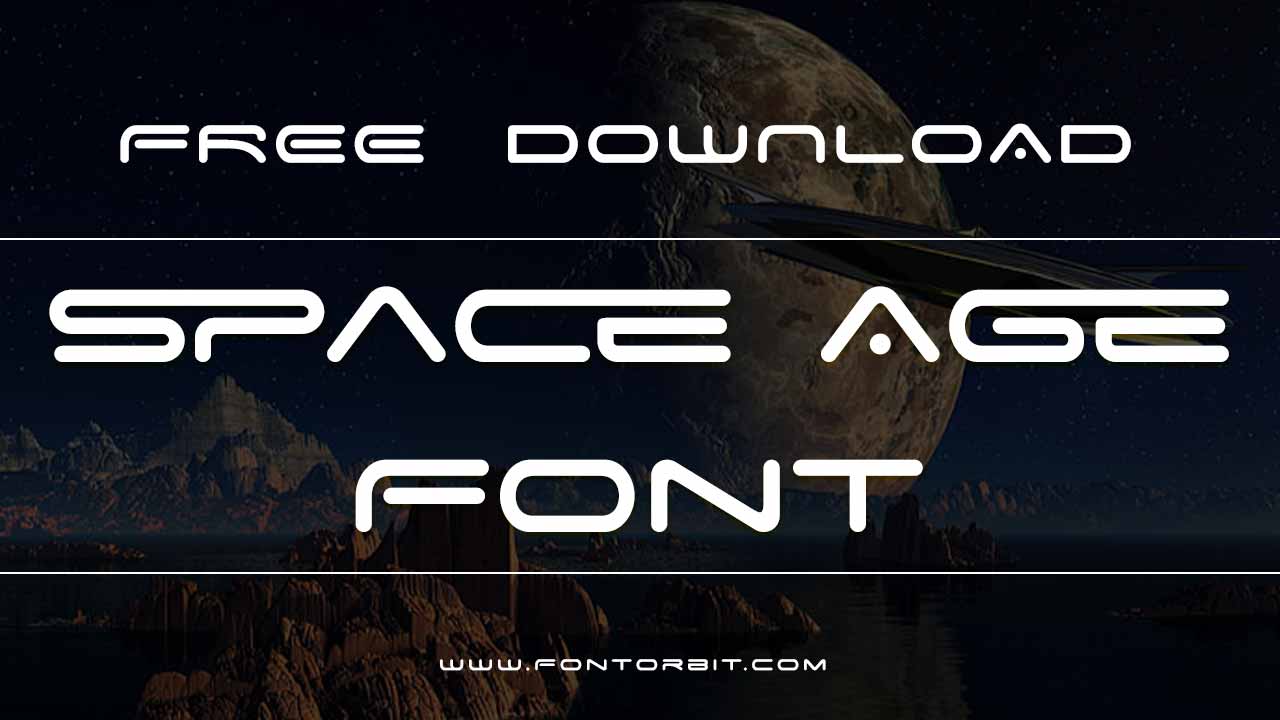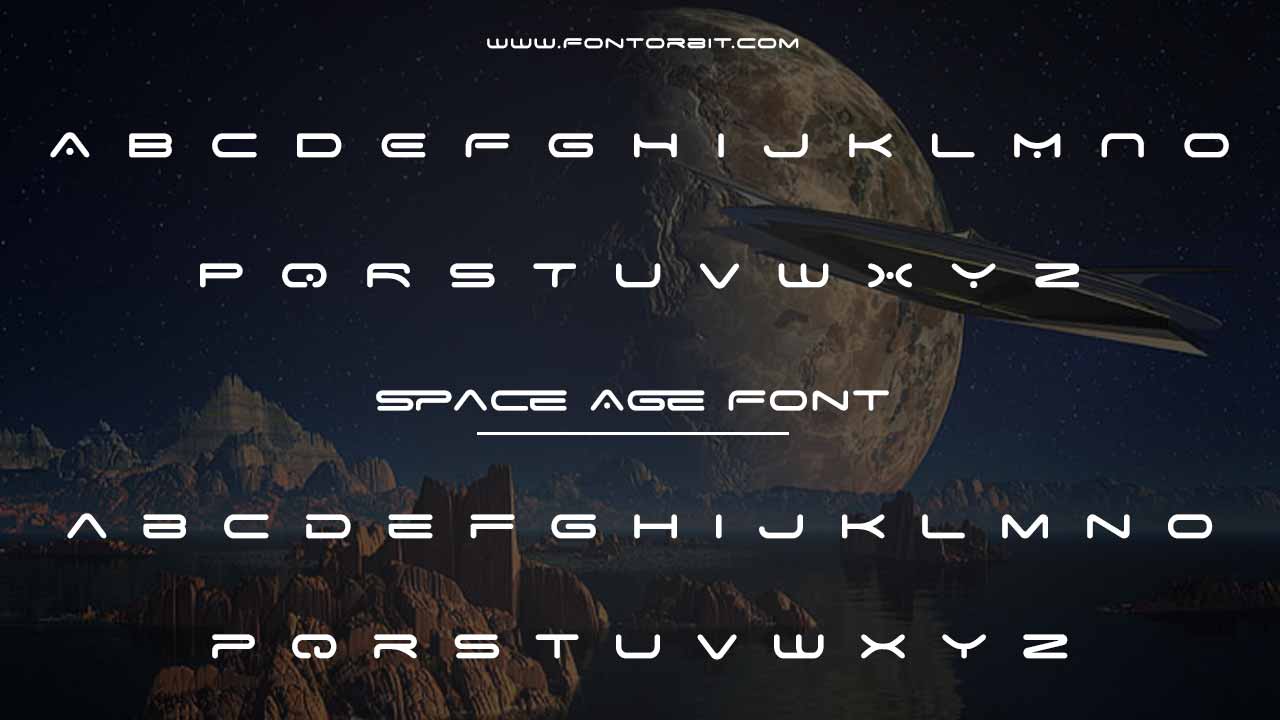
Space Age, designed by Justin Callaghan, is a unique, futuristic typeface that has become a favorite among designers. Its sleek, modern appearance makes it ideal for various design projects, from logos and websites to printed materials. This font captures the essence of space exploration and technology, making it a go-to choice for many creative professionals.
Key Features Of Space Age Font Family
The Space Age Font Family is a single-style typeface that is perfect for designers looking for a bold, tech-inspired aesthetic. Here’s a closer look at the font family and its core features:
Font Family Includes:
- Space Age Regular
Although this font is available in one style, its versatility is what makes it stand out in a crowded font market. It’s clean, futuristic, and simple to use in various design contexts.
Key Font Features
- Alternate Capitals
- Uppercase Letters
- Numerals
- Extended Characters
- Ligatures in OpenType version (available in Adobe Photoshop, Illustrator, and InDesign)
- Wide Range of Supported Characters (includes tilde, underscore, and other special characters)
Why Designers Choose Space Age Font
Designers choose the Space Age for its versatility and modern aesthetic. Whether it’s for logos, websites, printed materials, or tech-related content, the Space Age font ensures that each project stands out. Here’s why it’s so popular:
- Futuristic Appeal: Perfect for space-themed or technology-focused projects, Space Age gives any design a high-tech and modern vibe.
- Simplicity with Style: Its clean lines make it easy to use in commercial projects while offering the bold look that makes it stand out in designs.
- Legibility Across Sizes: It works well on large logos or small website text, providing clarity and impact no matter the size.
The Font In Action
Space Age excels in many design applications. Here’s a quick chart to help you see where this font can be used effectively:
| Design Application | How Space Age Works |
| Logos | Ideal for bold, tech-inspired logos, especially in space-themed projects. |
| Websites | Clean and modern for headers, navigation menus, and even body text. |
| Advertising | Perfect for banners, billboards, and promotional content that needs to grab attention. |
| Printed Materials | Great for posters, brochures, and flyers, with sharp legibility at various sizes. |
| Social Media Posts | Stand out in posts and graphics, giving them a futuristic edge. |
3. Does Space Age Font Support Cyrillic Characters?
Yes, Space Age Cyrillic is an extended version of the original font, providing support for Cyrillic characters. This makes it suitable for many languages, including those that use the Cyrillic alphabet. Whether you’re working on international projects or targeting Cyrillic-speaking audiences, the Space Age font family has you covered.